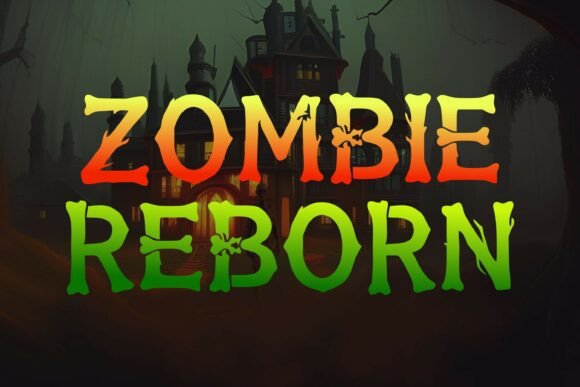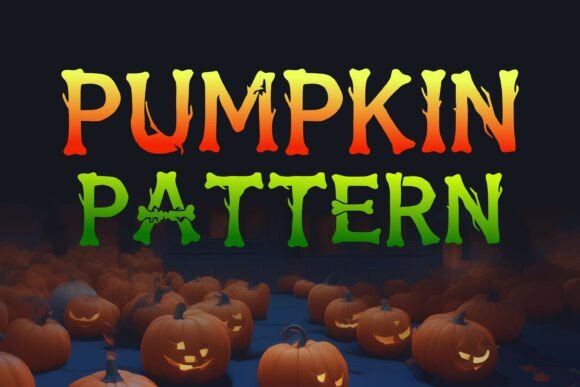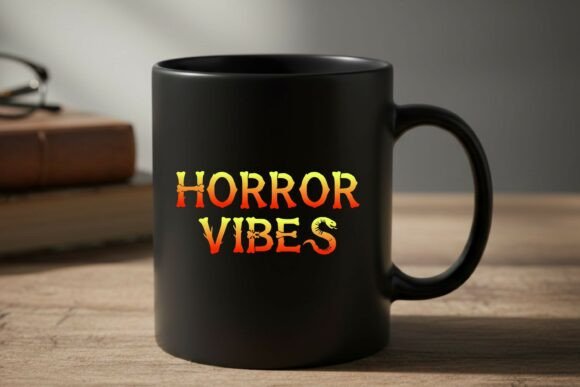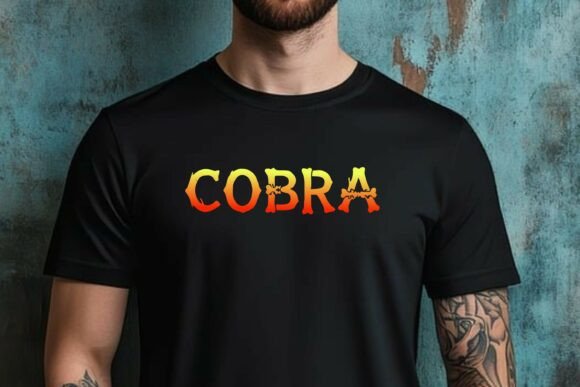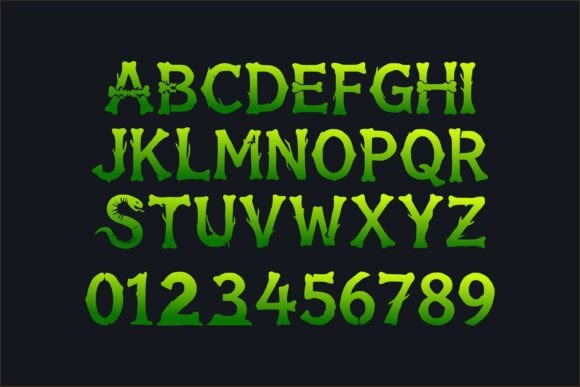
Introduction to Snake Reptile Font
Snake Reptile is a bold and eye-catching display font inspired by the natural textures and movement of reptiles.
Featuring organic curves, scale-like details, and a vibrant gradient feel, this typeface brings a wild, exotic, and adventurous vibe to any design Perfect for projects that need a strong visual impact, Snake Reptile is ideal for nature themes, jungle designs, gaming titles, posters, branding, and kids’ projects.